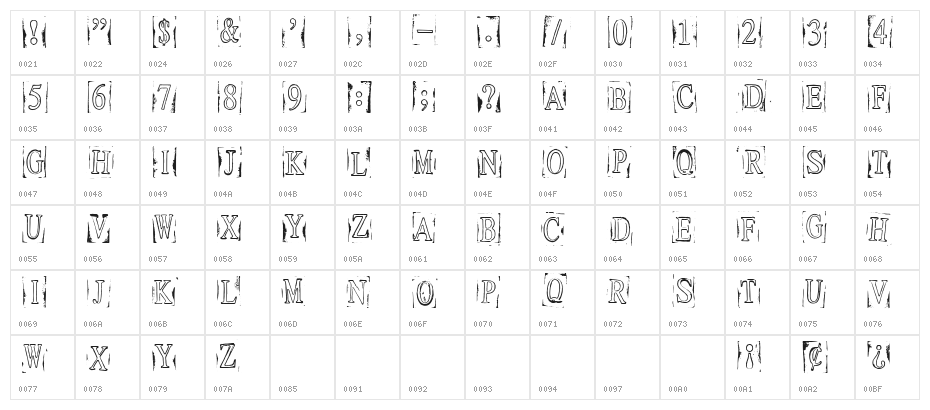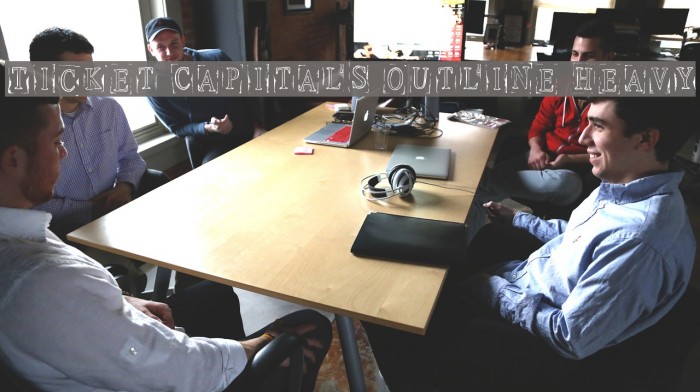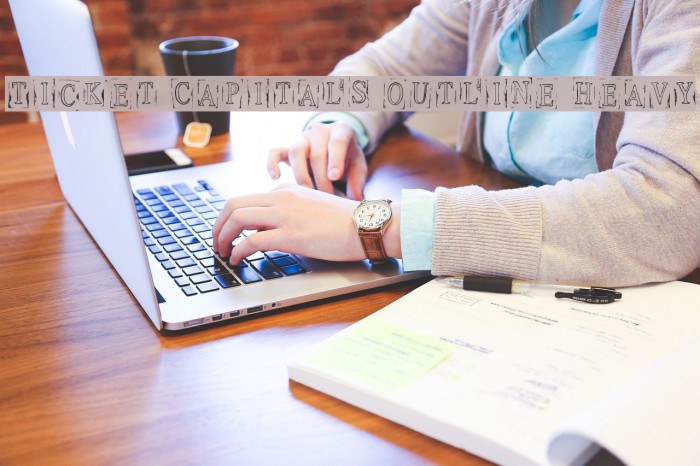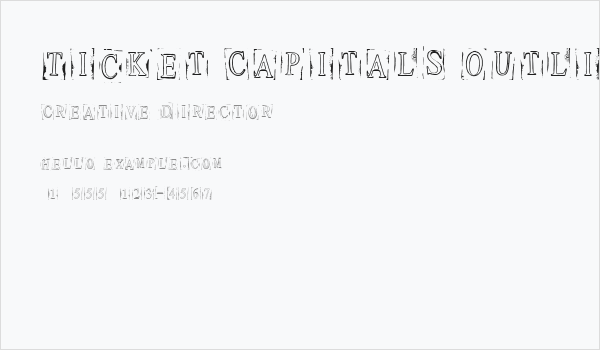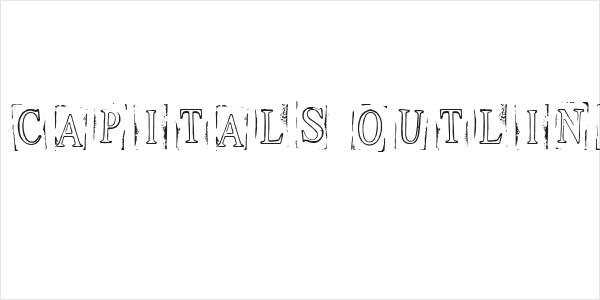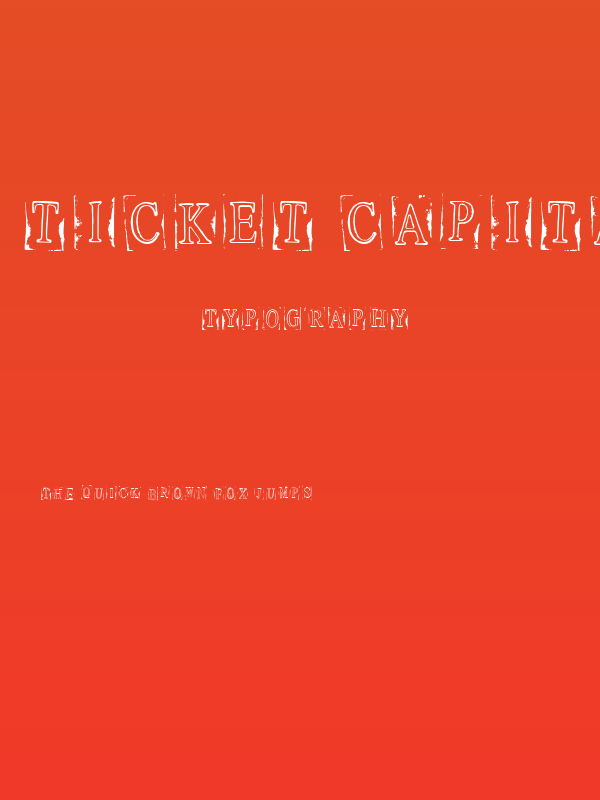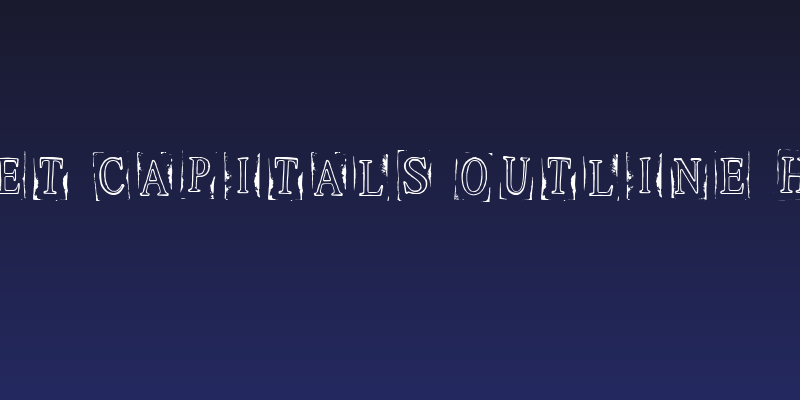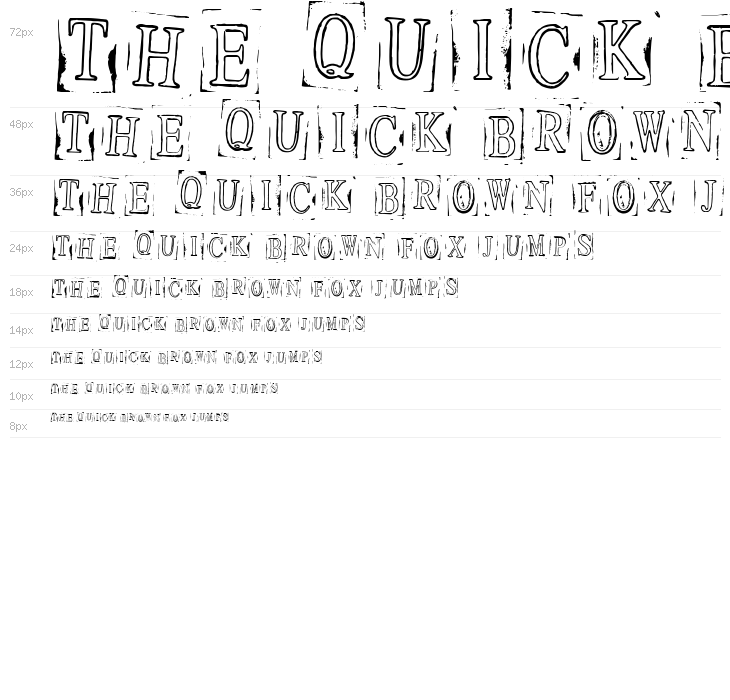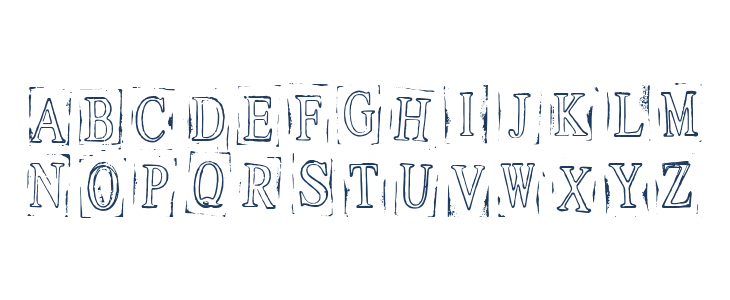
Ticket Capitals Outline Heavy Font
Ticket Capitals Outline Heavy Description
This font features a bold, heavy outline style with a distressed, vintage appearance. Each character is enclosed in a rectangular border, giving it a ticket-like aesthetic. The uppercase letters are prominent and uniform, while the numbers and special characters maintain the same bold outline, enhancing the cohesive look. The distressed texture adds a rugged, worn feel, making it ideal for designs that require a retro or industrial touch. The font's unique style is both eye-catching and versatile, suitable for various creative applications.
| Proposed Projects | Ideal for vintage-themed posters, event tickets, branding, and packaging designs. |